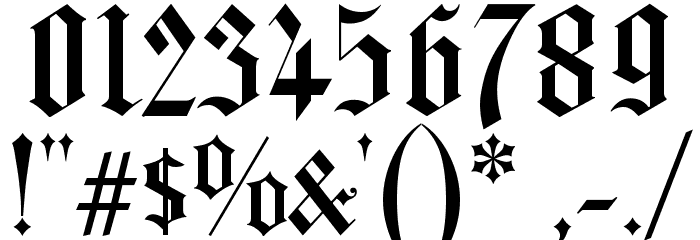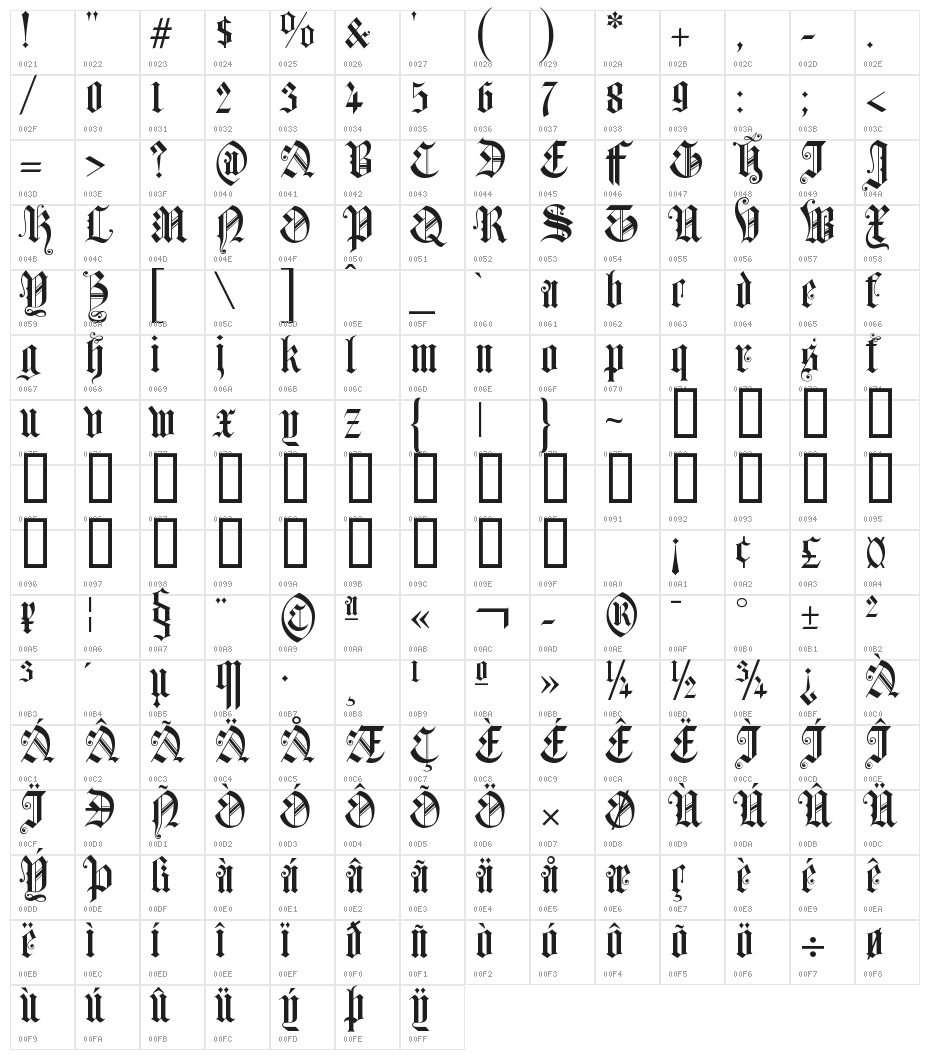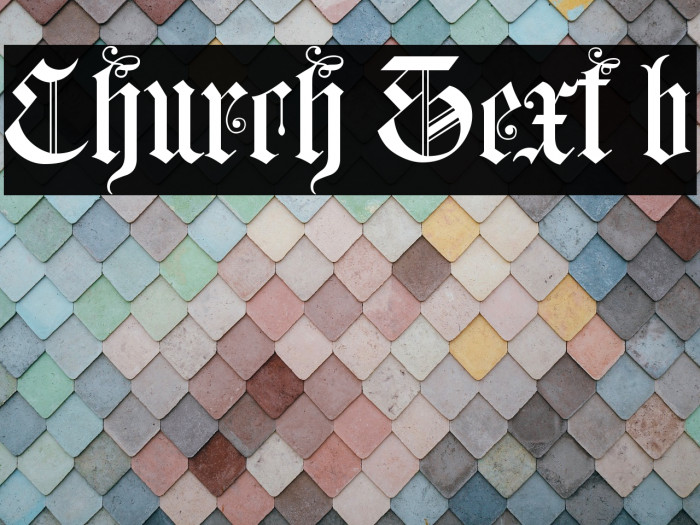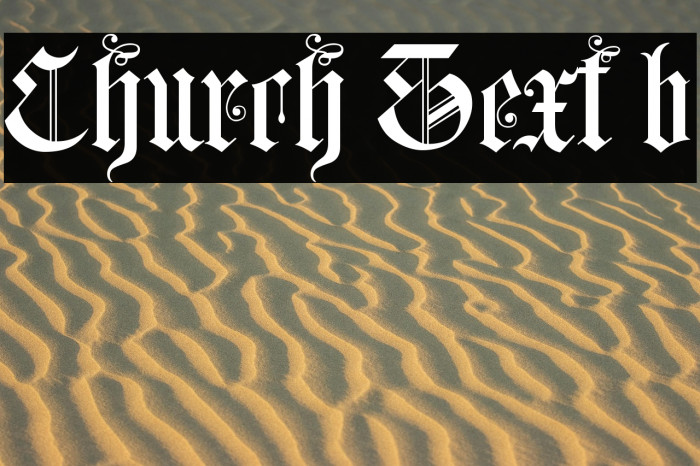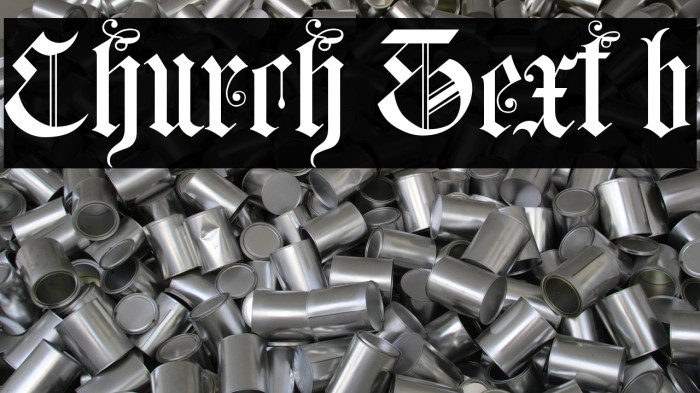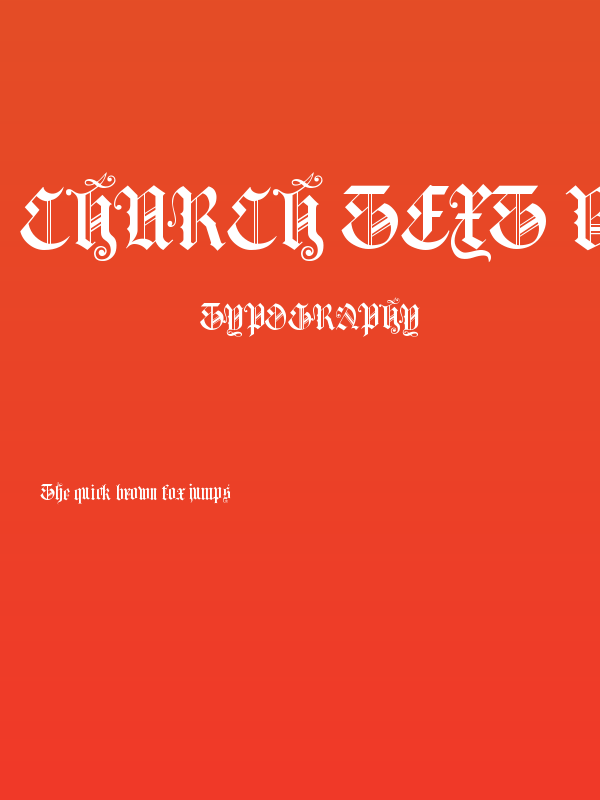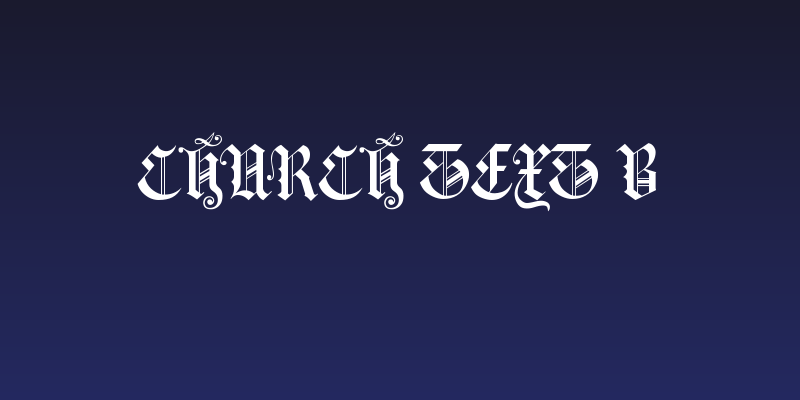
Church Text b Font
Church Text b Description
This font embodies the traditional and ornate characteristics of Blackletter typefaces, often associated with medieval manuscripts and Gothic architecture. The letters are highly decorative, featuring sharp, angular lines and elaborate flourishes, particularly on the uppercase characters. The lowercase letters maintain a consistent style, with a strong vertical emphasis and intricate detailing. The numerals are bold and distinctive, matching the overall aesthetic. Special characters are equally ornate, adding to the font's dramatic and historical feel. This style is reminiscent of old-world craftsmanship and evokes a sense of grandeur and tradition.
| Proposed Projects | Ideal for projects that require a historical or Gothic aesthetic, such as book covers, posters, or branding for vintage-themed products. |